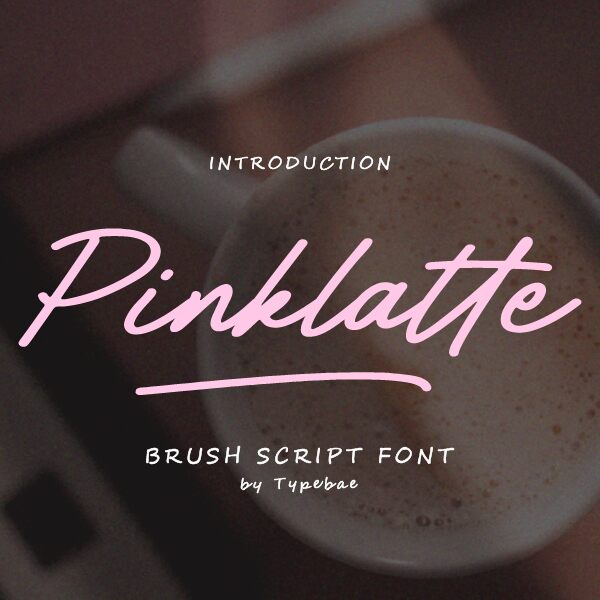
Pinklatte font is a handwritten free font by Typebae Foundry. The font has an interesting name and an even more interesting, so-to-call breathtaking style. An elegant handwriting fully oriented towards a modern use for attractive contemporary applications in a variety of fields such as branding. The idea is to provide you with a ready legible, and stylish resource for your creative projects.
This font is suitable for a clear range of things: packaging, apparel design, illustrations, publications, posters, magazine covers, book covers, branding, websites, mobile applications, and many more. You get both a legible and decorative touch to make your projects as beautiful and premium as intended.